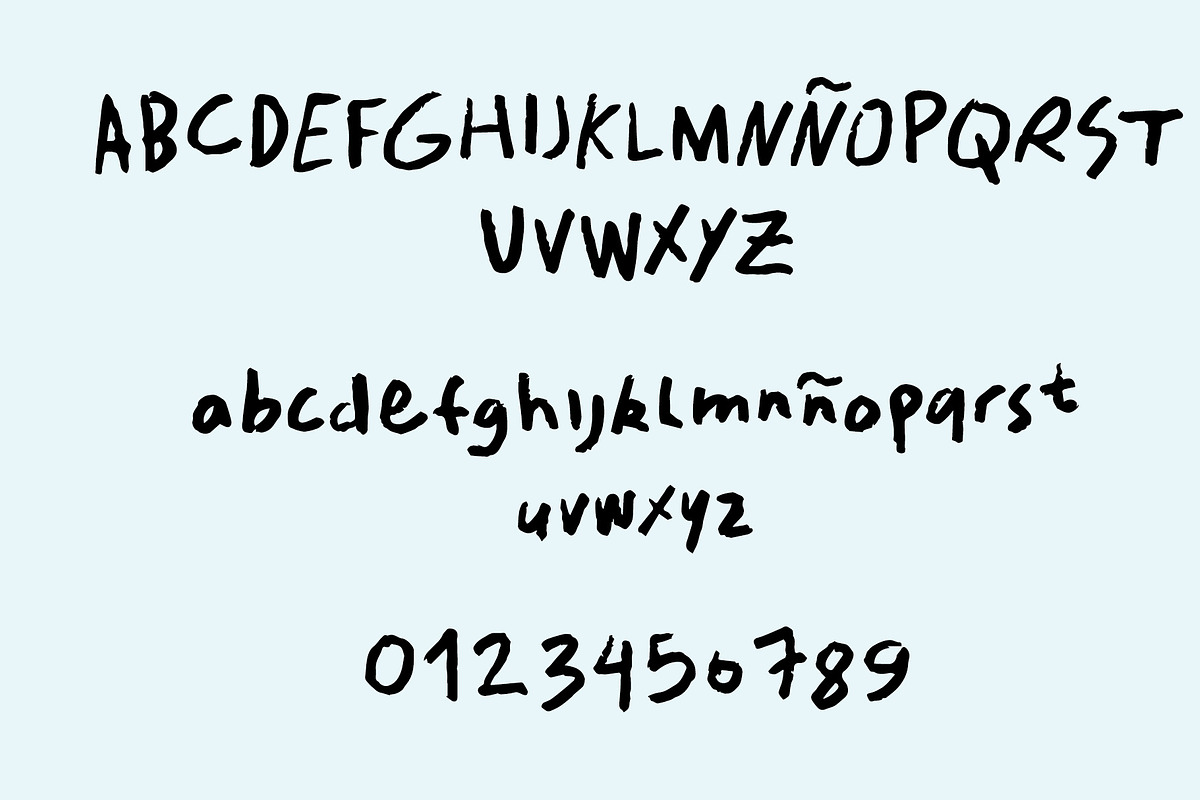
Foxtrot
Foxtrot is a handmade vector font that masterfully balances a touch of messiness with clean, streamlined design. Crafted with a personal, artistic touch, each character in Foxtrot displays slight irregularities and variations, akin to hand-drawn artistry. This unique blend gives the font a lively, organic feel, while maintaining a clear and legible form.
Perfect for designs that require a human touch without sacrificing neatness, Foxtrot shines in creative branding, informal invitations, and innovative web design. Its slightly unkempt yet tidy appearance makes it ideal for projects that seek to be modern and approachable, adding a charmingly imperfect character to your creations.
Foxtrot is not just a font, but a celebration of the beauty in imperfection, rendered with a clean, contemporary edge.